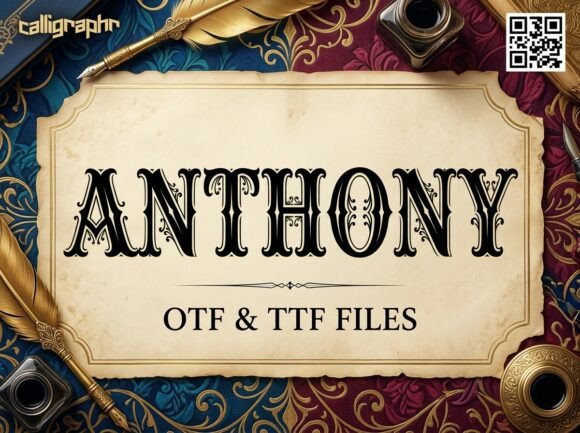
Introducing Anthony Font: A Stunning Decorative Display Font
Are you tired of using the same old fonts for your creative projects? Look no further than Anthony Font, a decorative display font designed to grab attention and make a statement. With its unique artistic elements and strong visual personality, this font is perfect for creators who want to break away from the ordinary and add a touch of elegance to their work.
What Makes Anthony Font Special?
Anthony Font is a versatile decorative font that is perfect for a variety of creative projects, including bold headlines, artistic logos, and creative packaging. Its strong visual personality and unique artistic elements make it an excellent choice for designers and crafters who want to add a touch of sophistication to their work.
One of the standout features of Anthony Font is its ability to maintain a professional and polished finish, even when used for high-impact headlines and titles. This makes it an excellent choice for a variety of applications, from branding and advertising to packaging and editorial design.
Important Note: All-Caps Display Typeface
Before purchasing Anthony Font, it’s essential to note that it’s an ALL-CAPS (Uppercase Only) display typeface. This means that it does not include lowercase letters, making it specifically designed for high-impact headlines, logos, and decorative initials where every letter is a work of art.
This unique design feature allows for a level of creativity and customization that’s hard to find with traditional fonts. By using only uppercase letters, you can create stunning visual statements that are sure to grab attention and leave a lasting impression.
Anthony Font is perfect for designers and crafters who want to add a touch of elegance and sophistication to their work. Whether you’re working on a branding project, creating packaging for a product, or designing a website, this font is sure to make a statement.
With its unique artistic elements and strong visual personality, Anthony Font is an excellent choice for a variety of creative projects, including:
- Bold headlines and titles
- Artistic logos and branding
- Creative packaging and labeling
- Editorial design and publishing
Tips for Using Anthony Font
To get the most out of Anthony Font, here are a few tips to keep in mind:
- Use it sparingly: Because of its bold and eye-catching design, it’s best to use Anthony Font sparingly to make a maximum impact.
- Experiment with colors: Try pairing Anthony Font with different colors to create a unique and eye-catching visual statement.
- Mix and match: Don’t be afraid to mix and match Anthony Font with other fonts to create a unique and visually appealing design.
Anthony Font is a stunning decorative display font that’s perfect for designers and crafters who want to add a touch of elegance and sophistication to their work. With its unique artistic elements and strong visual personality, this font is sure to make a statement and leave a lasting impression.